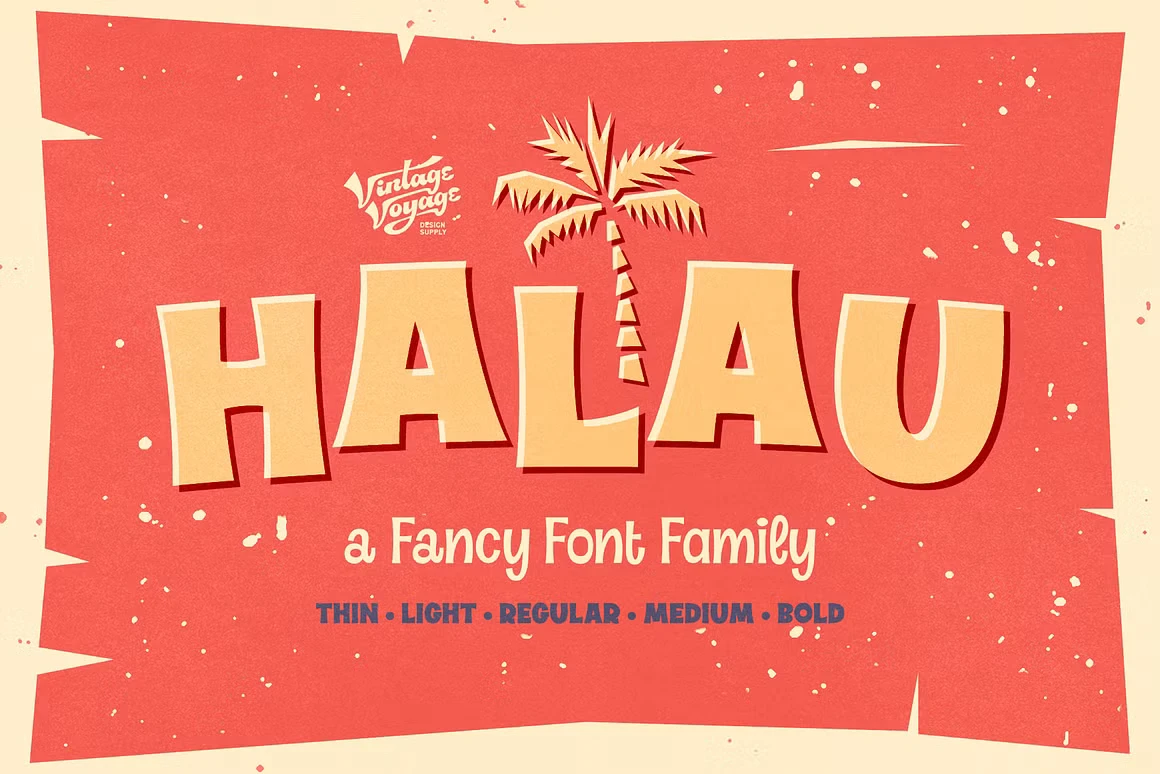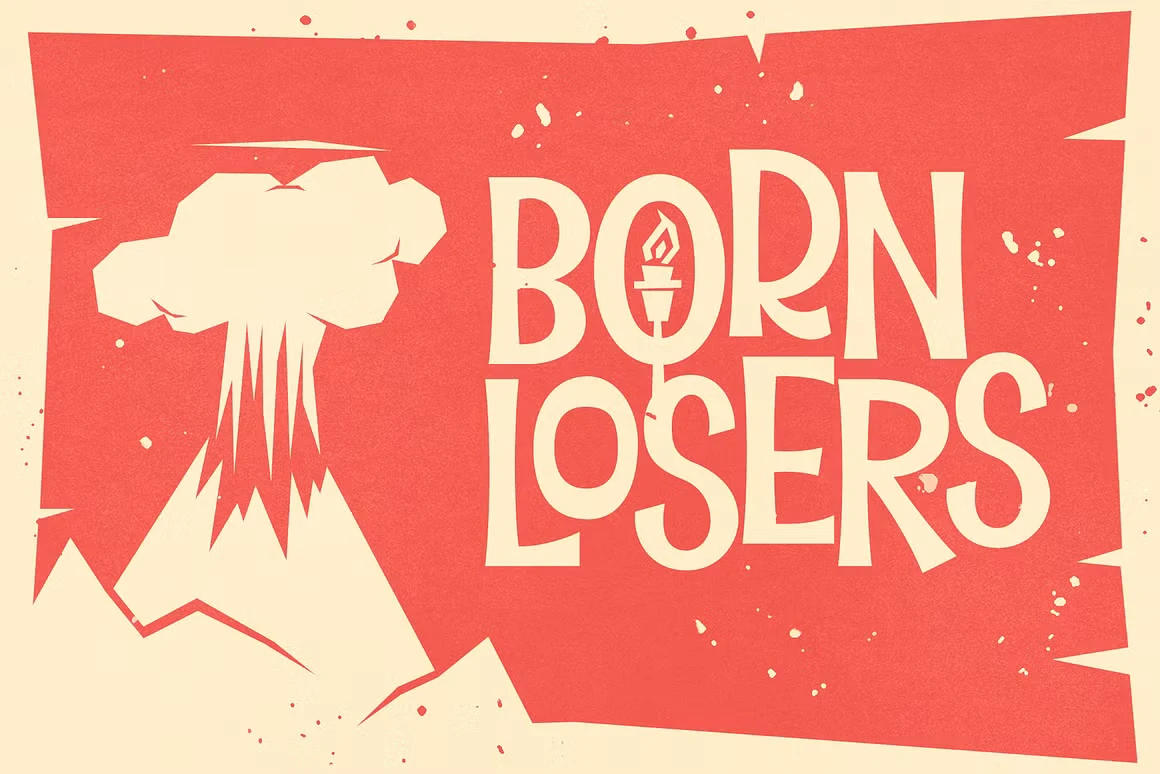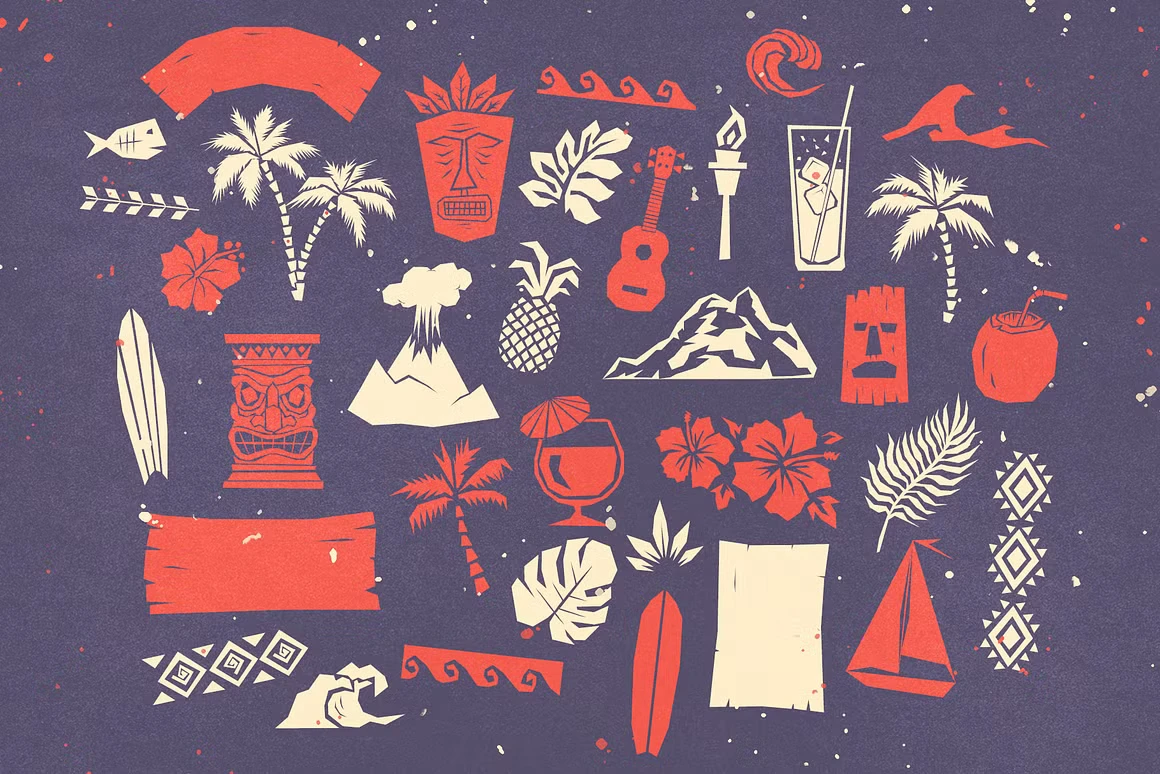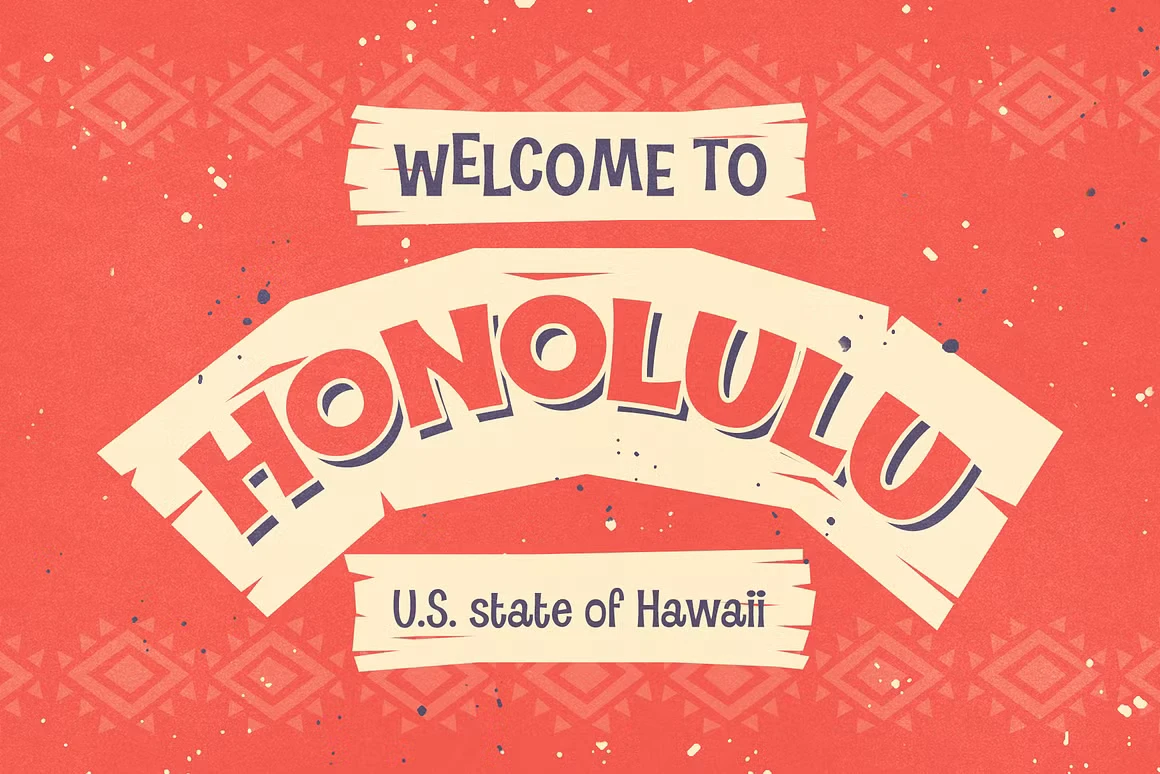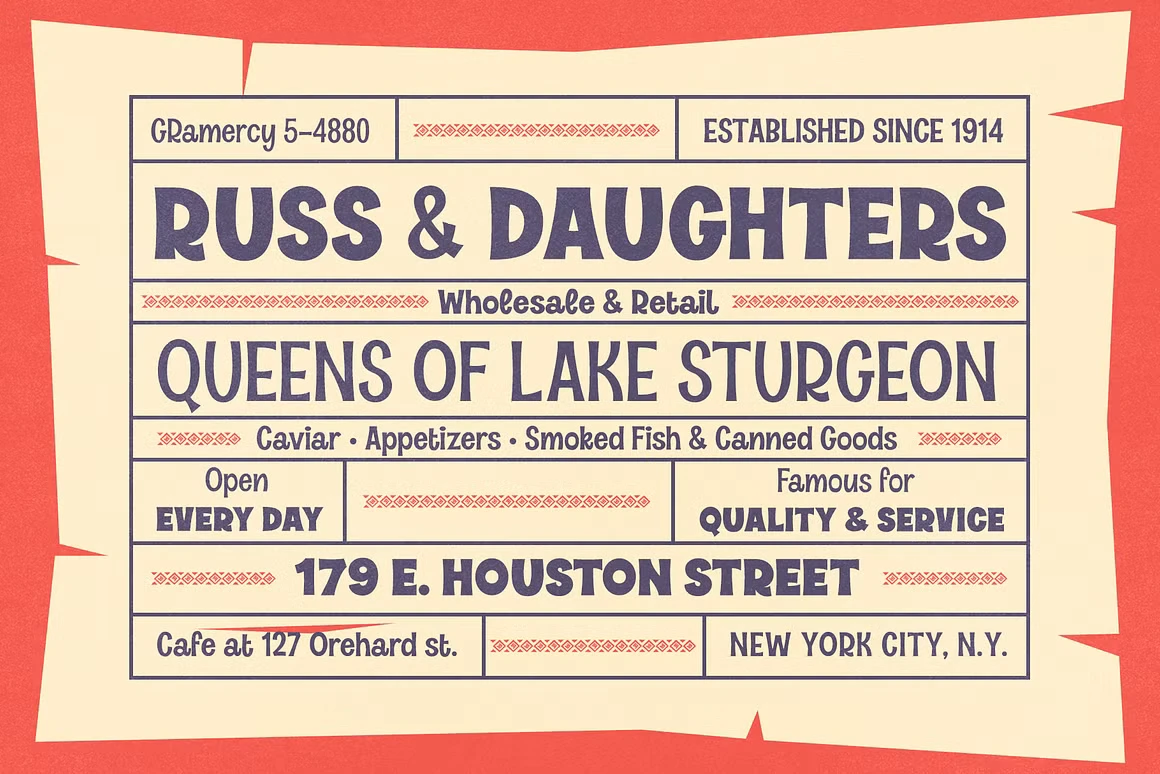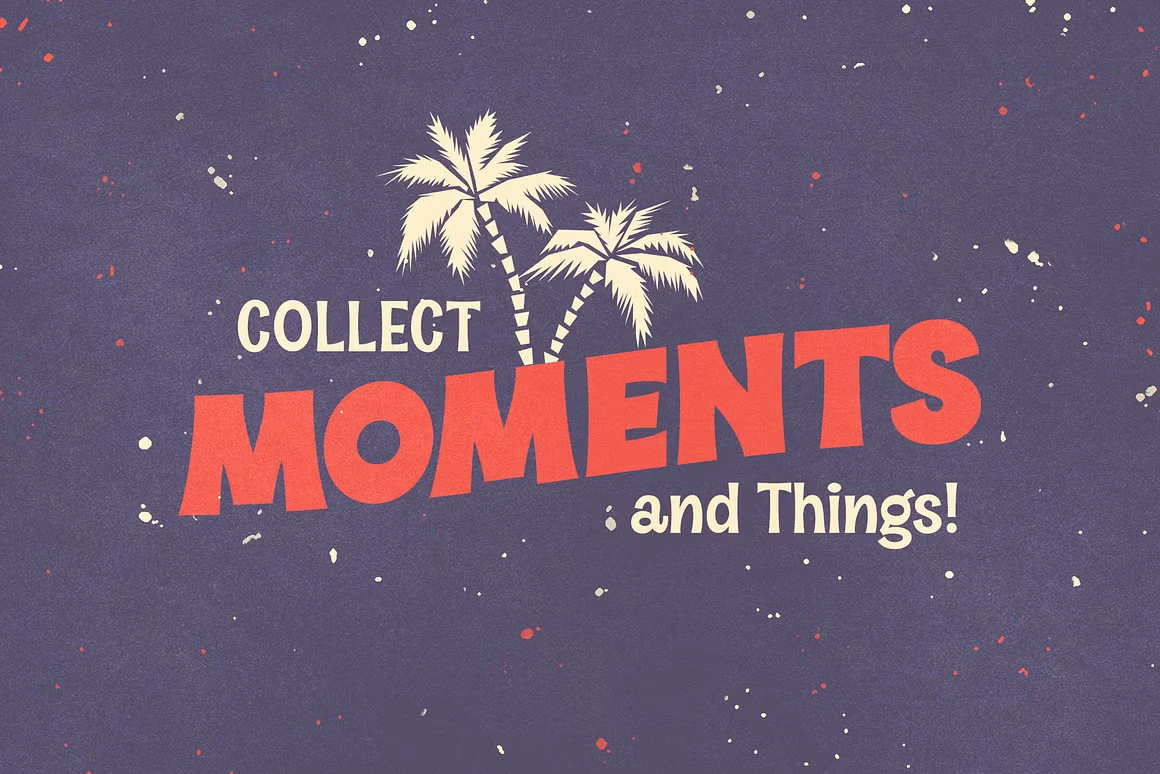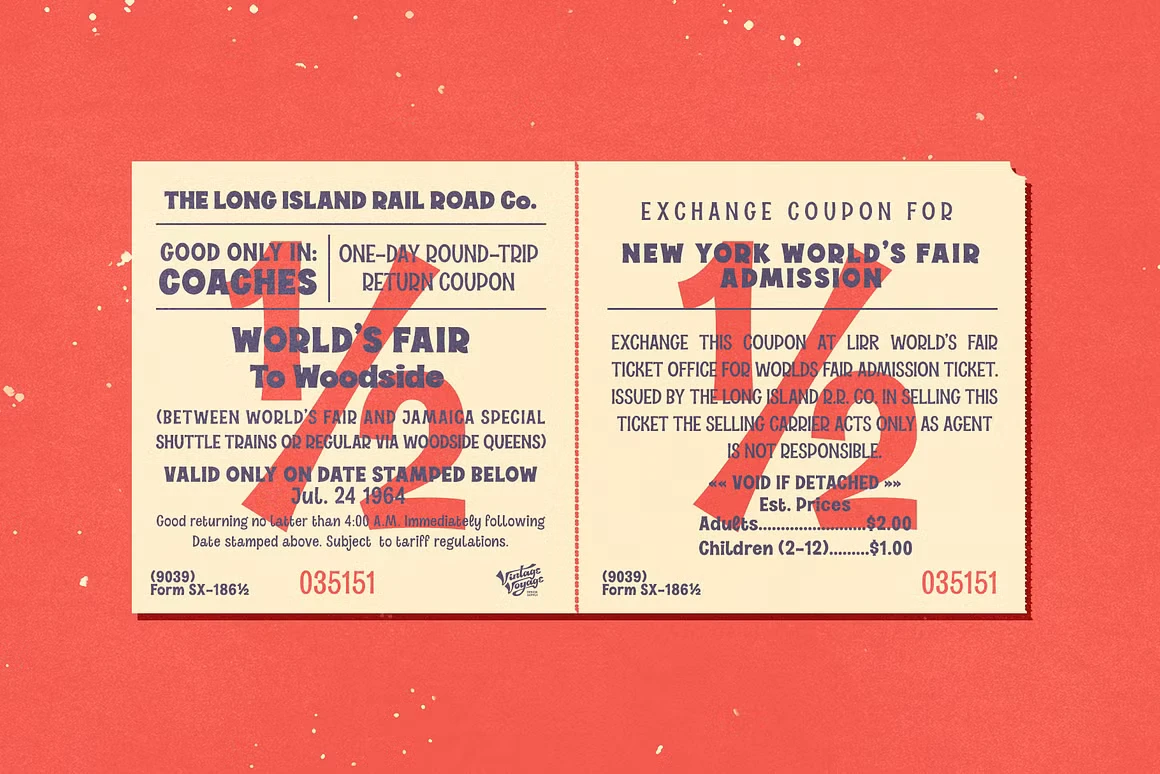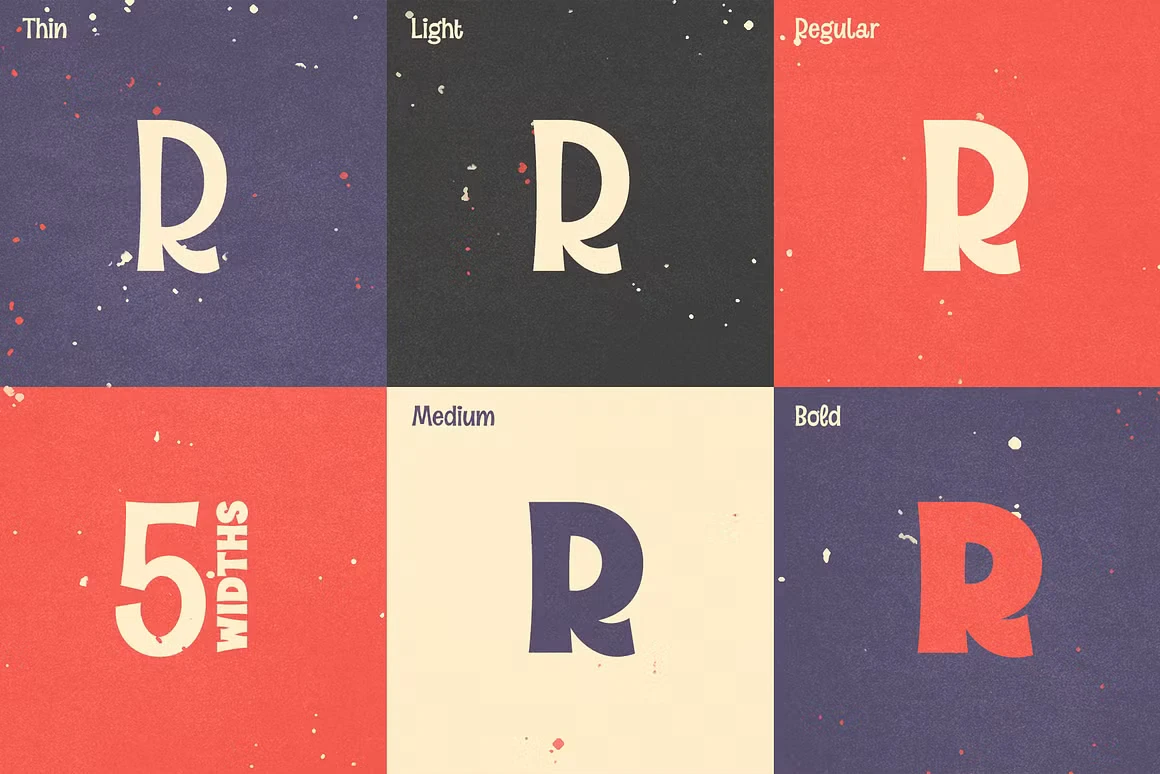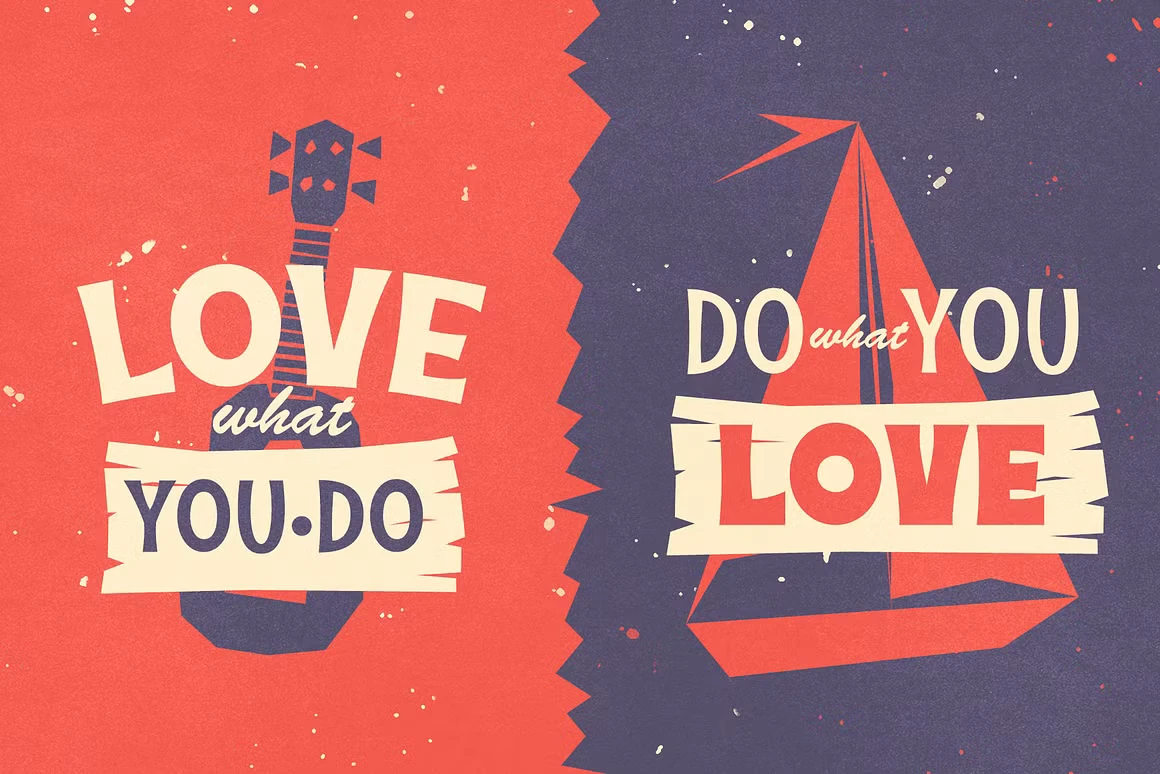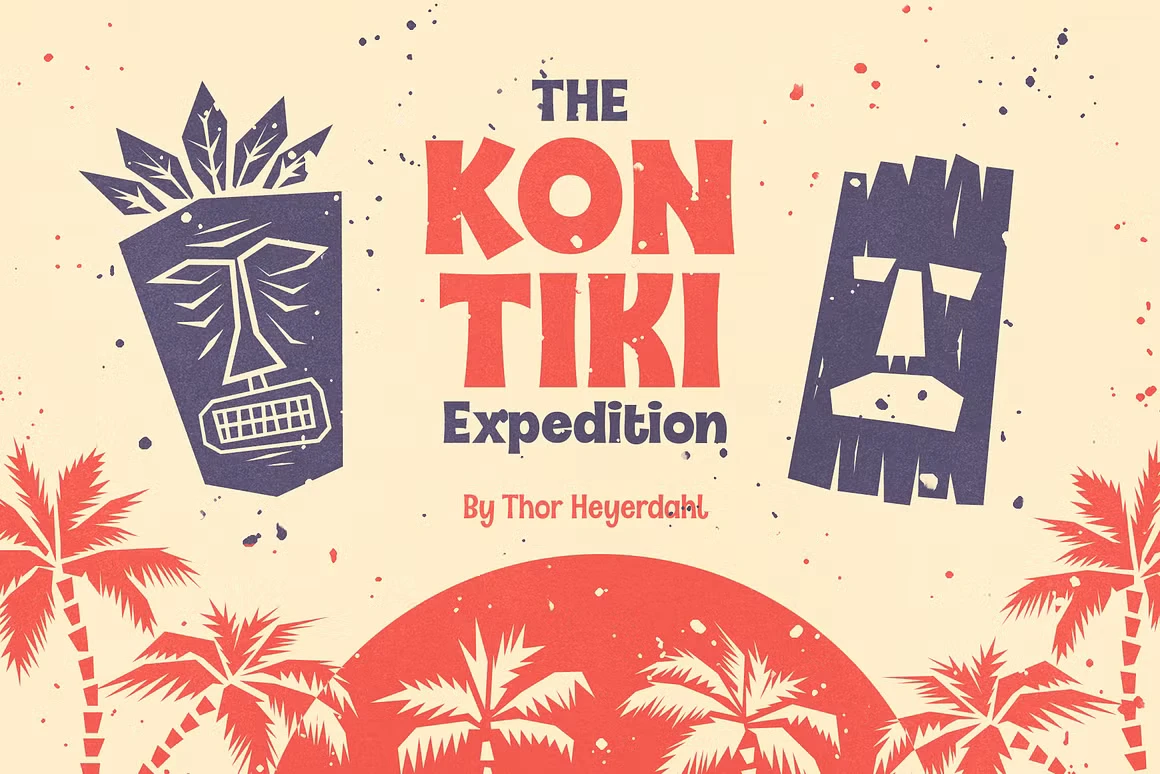
Halau Font Family
Halau is a fancy retro font family with a clear, elegant, and playful vibe. Inspired by 1960s–70s cartoon ads and Hawaiian poster design. Perfect for sunny, seasonal projects like summer campaigns, beach-themed packaging, or retro branding. Features multiple width styles for dynamic combinations and standout typography. Includes alternates for select characters to add personality and variation. Also offers a unique illustration set as letter and numeral alternates, bringing an extra dose of Hawaii-style charm. Designed to brighten up any creative work with fun and flair.
• Common Ligatures
• Discretionary Ligatures
• Fractions
• Stylistic Alternates
• Stylistic Sets
• Superscript